You're looking for a fresh take on fonts, aren't you? Something bold and powerful, yet personal. Almost like it's been professionally drawn up by hand. We know exactly what you mean.
Notch
This industrial-inspired typeface with double-punch includes 4 different .ttf font variations: horizontal regular, horizontal inline, vertical regular, and vertical inline. More info...
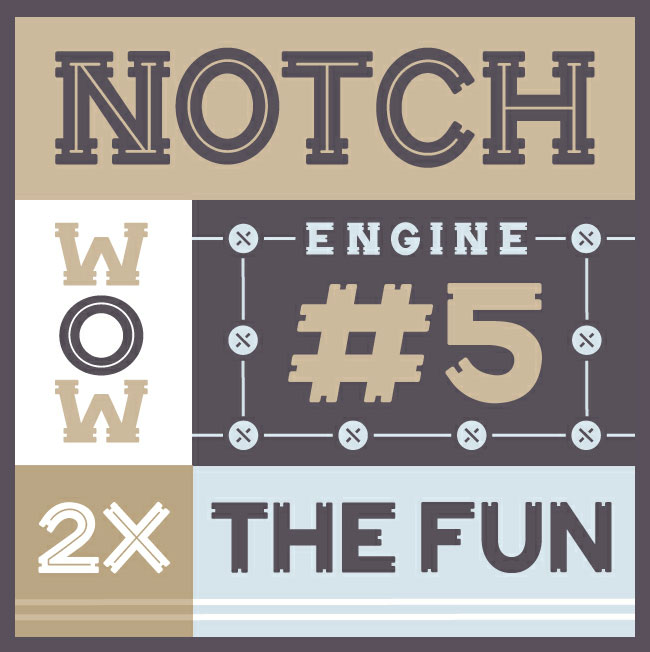
Hand Slab
This friendly hand-drawn extended slab serif typeface includes a separate block drop shadow font for layering. It also comes with a pre-packaged @font-face kit for implementing on the Web and supports multiple languages including: Albanian, Danish, Dutch, English, Faroese, French, German, Icelandic, Italian, Malagasy, Norwegian, Spanish, Polish and Swedish. More info...
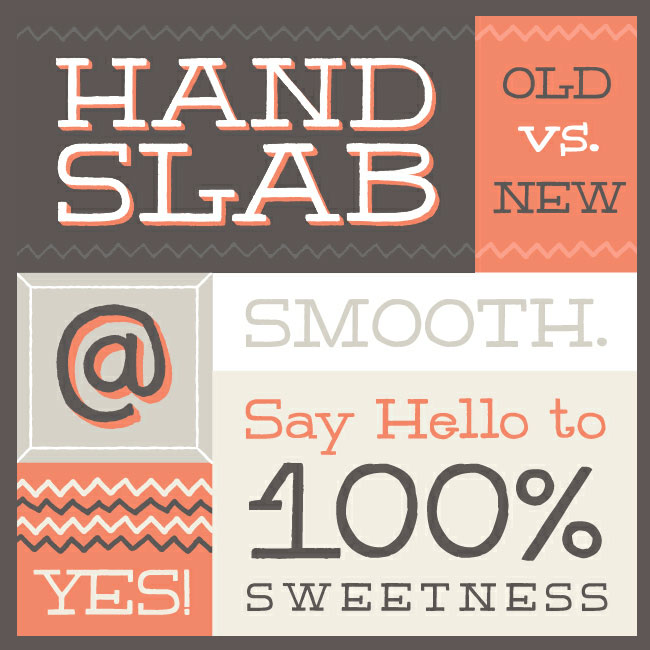
Jaywalk
A thin hand-drawn square display typeface, Jaywalk includes a regular font, an attached line drop shadow font and a separate line drop shadow font for custom layering. It also comes with a pre-packaged @font-face kit for implementing on the Web and supports multiple languages including: Albanian, Danish, Dutch, English, Faroese, French, German, Icelandic, Italian, Malagasy, Norwegian, Spanish, Polish and Swedish. More info...
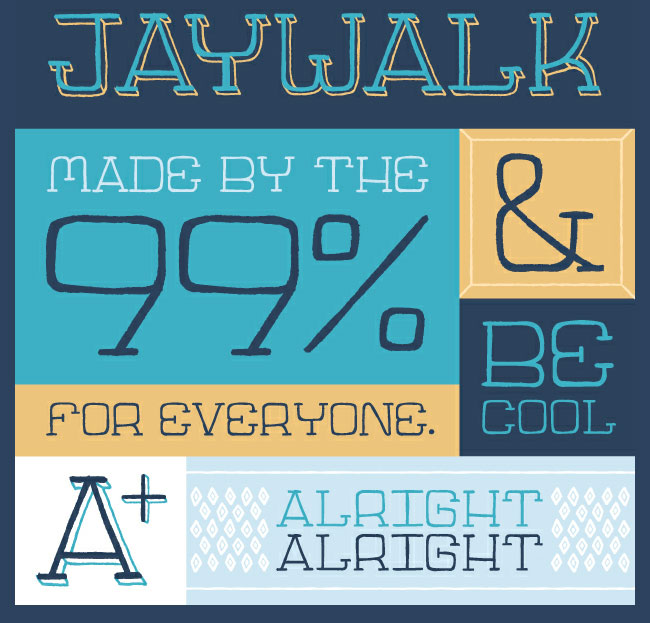
Prova
This charming hand-drawn condensed typeface originally created to compliment playful illustration work, includes a pre-packaged @font-face kit for web implementation, and supports multiple languages including: Albanian, Danish, Dutch, English, Faroese, French, German, Icelandic, Italian, Malagasy, Norwegian, Spanish, Polish and Swedish. More info...
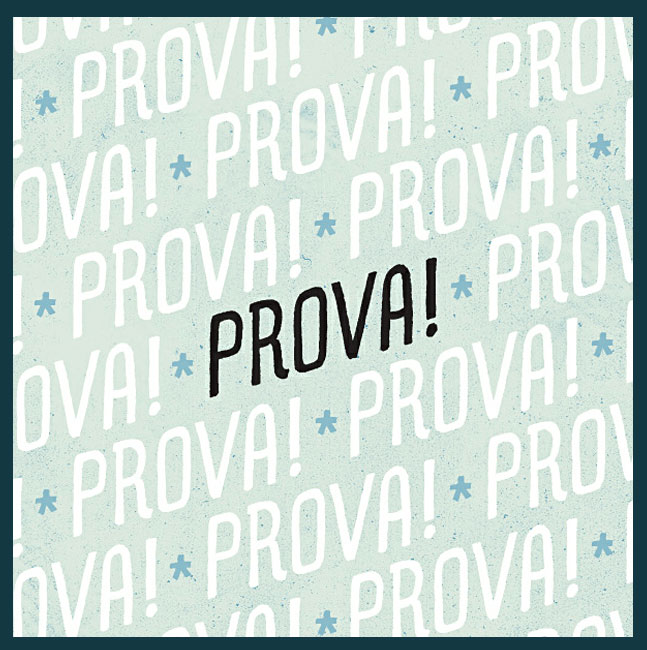
Sharpie
This loose hand-lettered typeface was created with a fat Sharpie marker, includes unique numbers and a limited number of non-standard glyphs. It includes a pre-packaged @font-face kit for web implementation